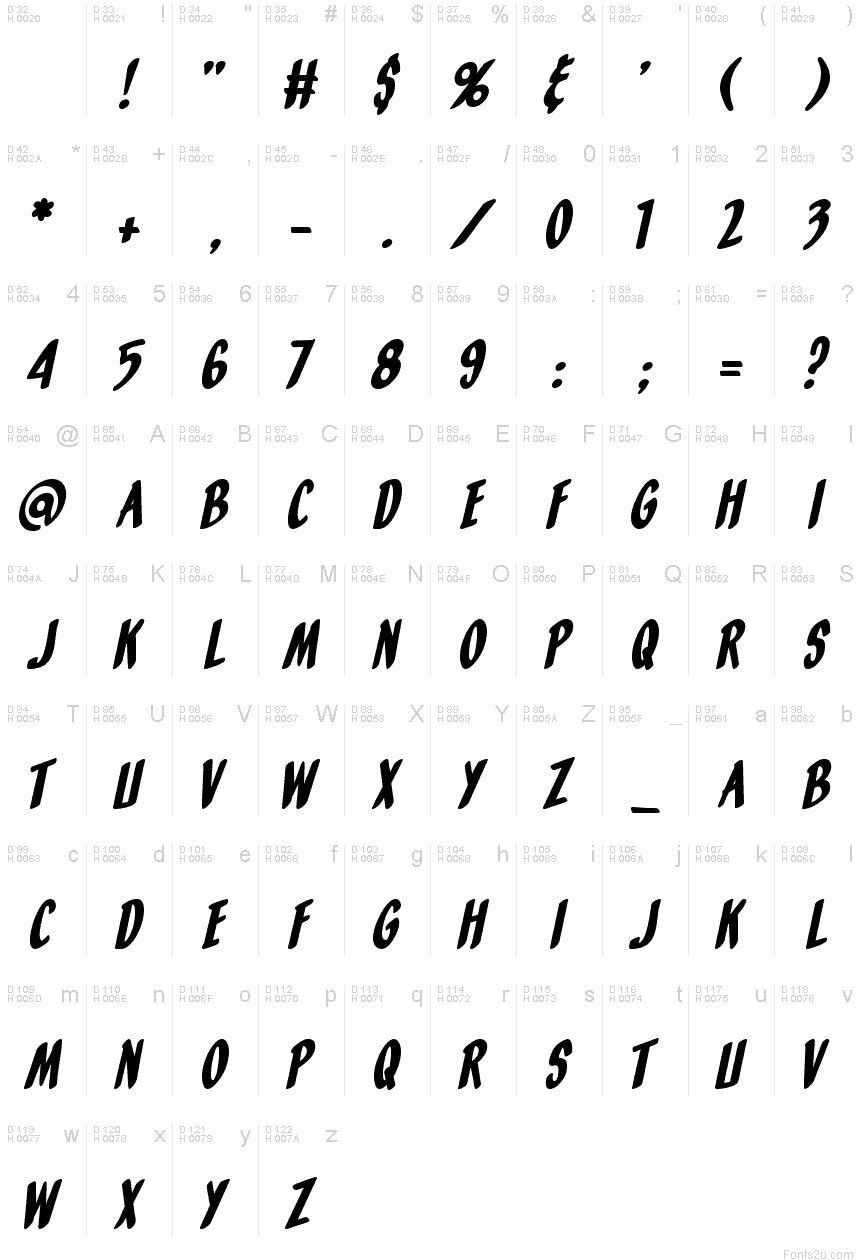
Orange Fizz Italic
Orange Fizz Italic font by Nate Piekos is a free comic display font with a slanted, hand-drawn rhythm and rounded, brushy forms. Its letters push forward with uneven curves and sharp angles, giving the word shape a lively, slightly rough edge without looking rigid.
Orange Fizz Italic works well for comic-book titles, poster text, zine covers, party flyers, and playful packaging where a loud slanted style feels right. The angled strokes and casual brush feel also make it a good fit for logo accents, sticker art, and arcade-style graphics that need energy without extra decoration.